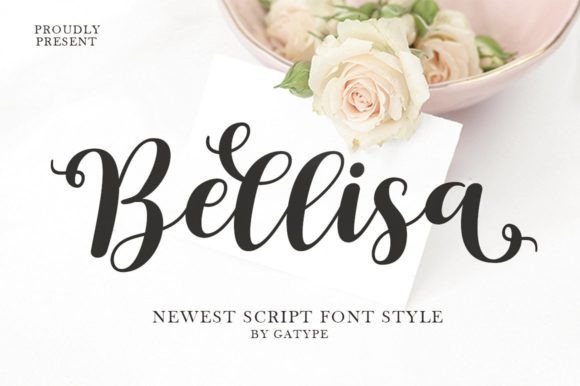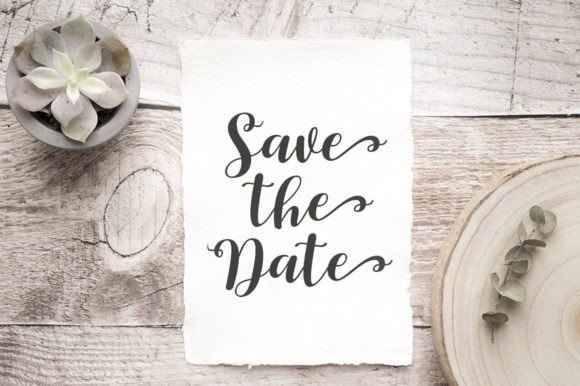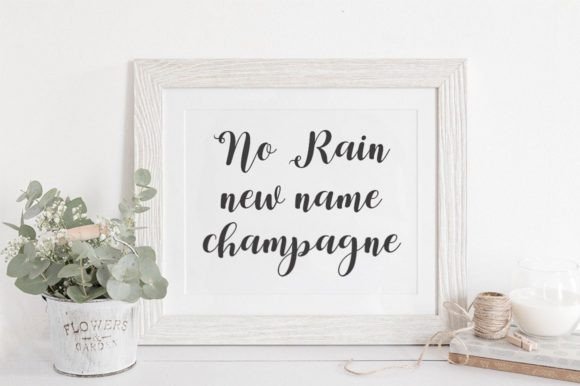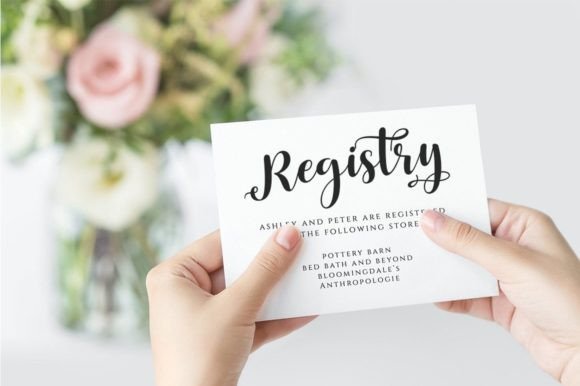
Bellisa Font
Bellisa is a cursive script font. With bold contrasting strokes, a playful character with a bit of binder and alternatives. This font is great for logo designs, Social Media, Movie Titles, Book Titles, short text, and long text, and is great for your secondary text together with sans or serif. Create stunning masterpieces with Bellisa font!This font is PUA encoded, which means you can access all of the glyphs and swashes with ease!